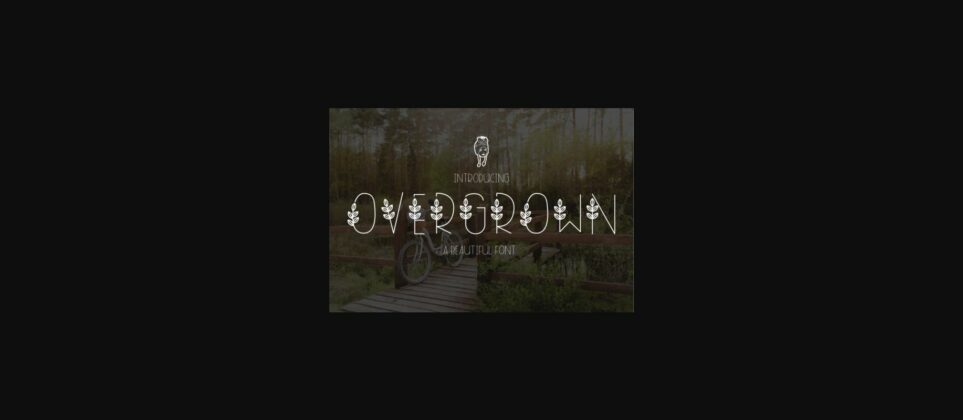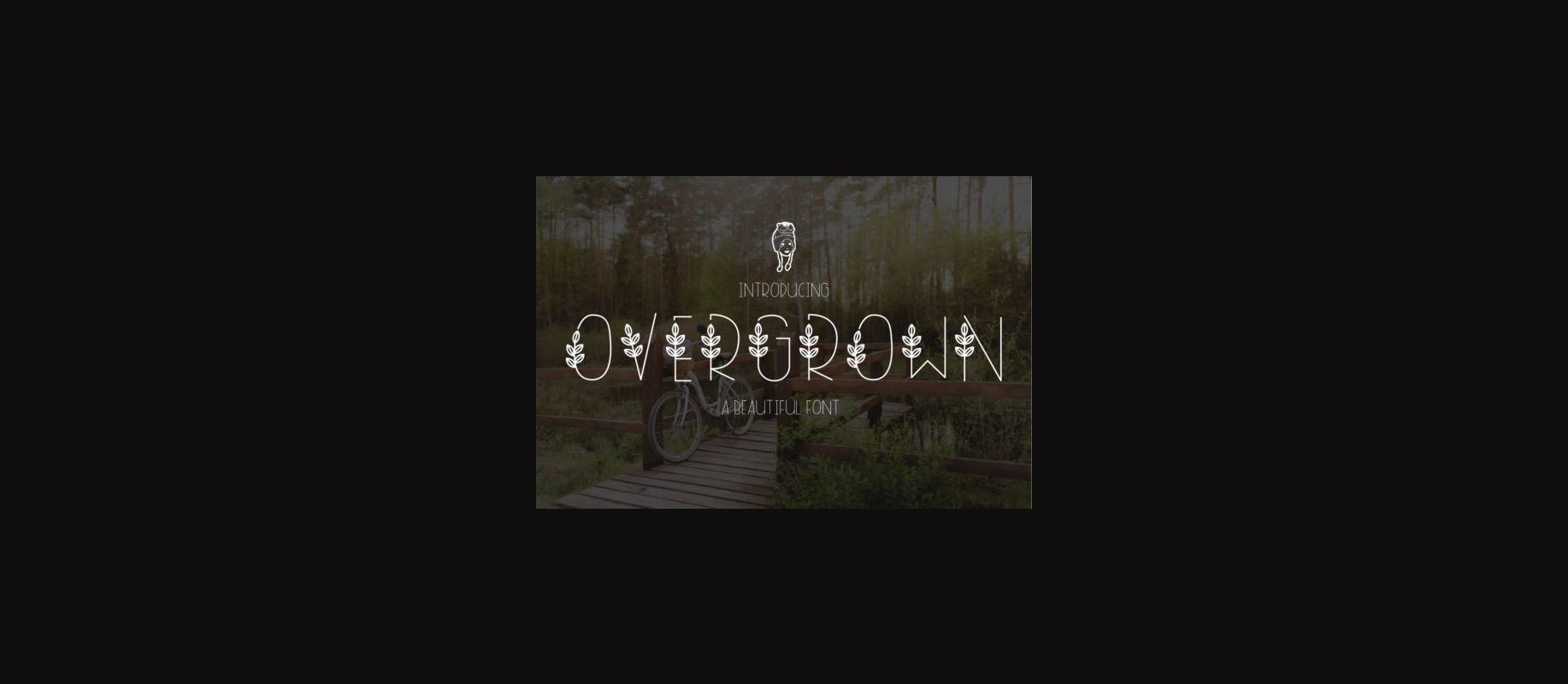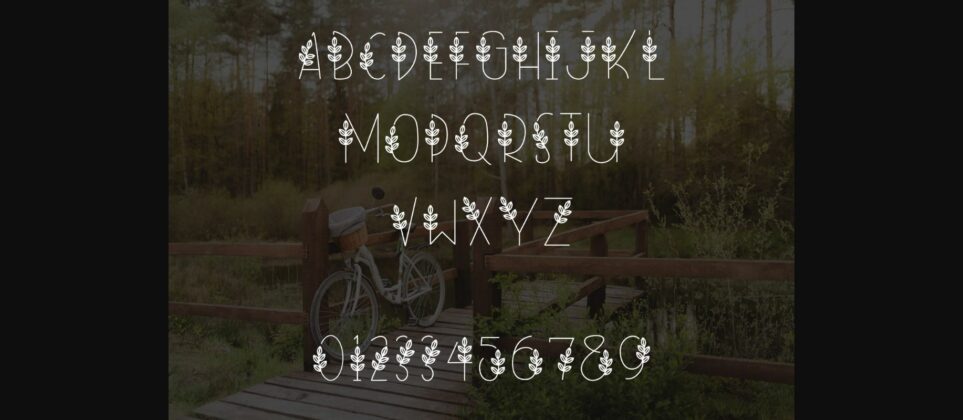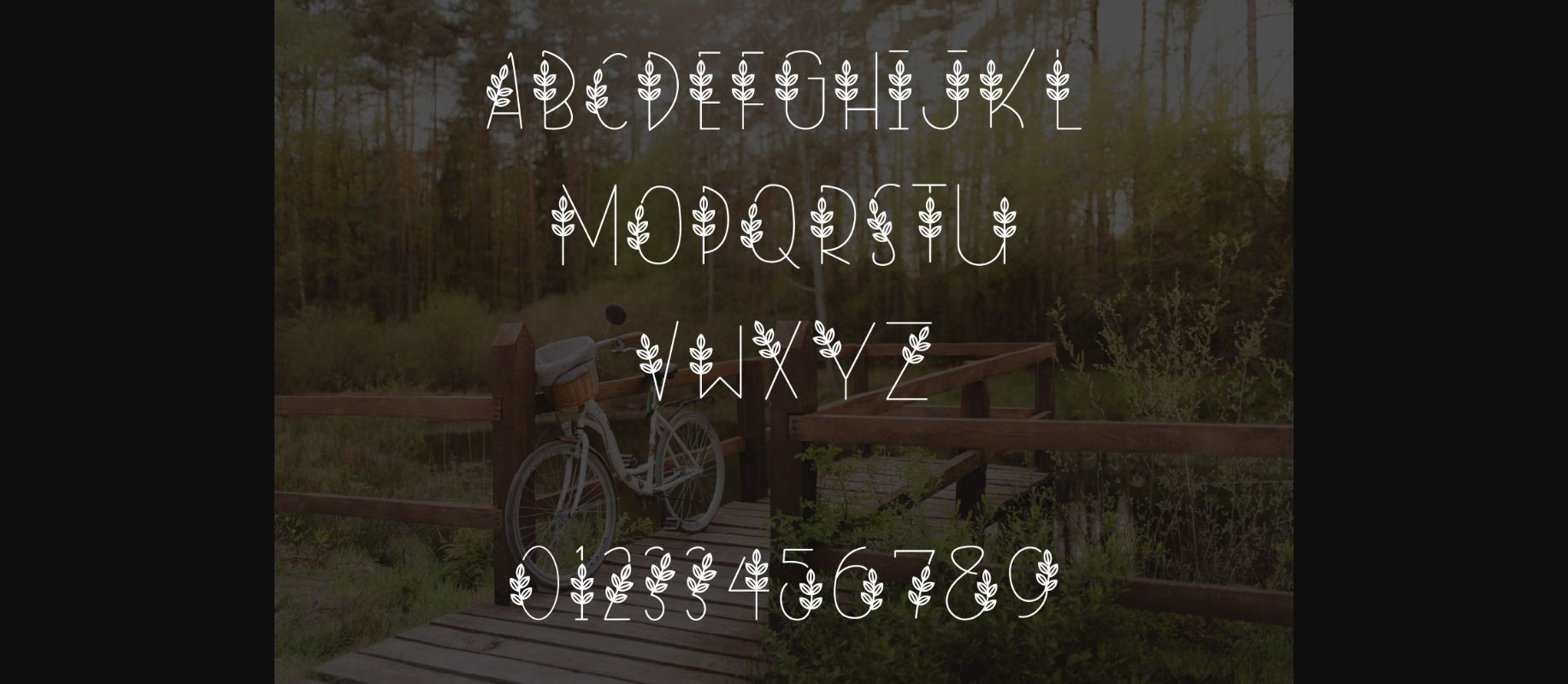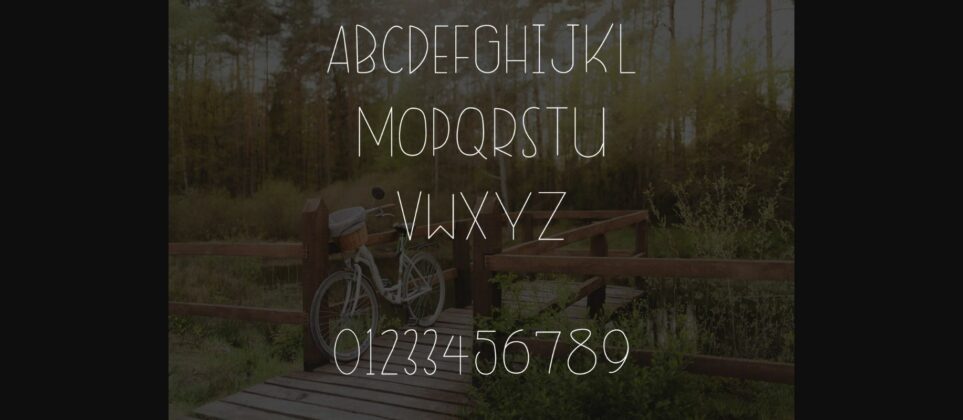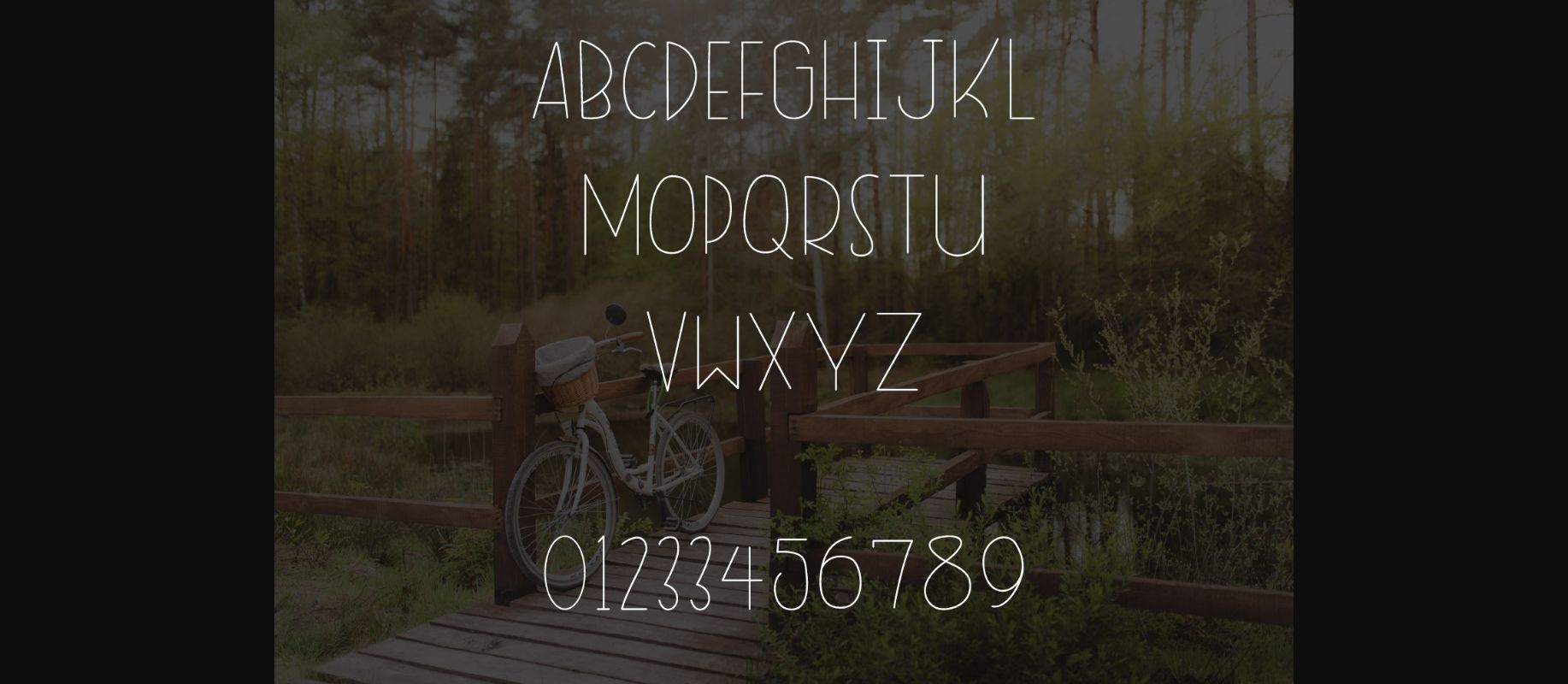
Overgrown Font
About Overgrown Font
Overgrown is a gorgeous monoline font. It features a leaf themed style that makes it perfect for all your spring crafting projects!